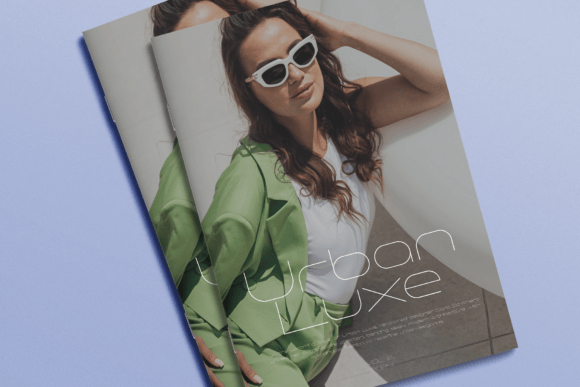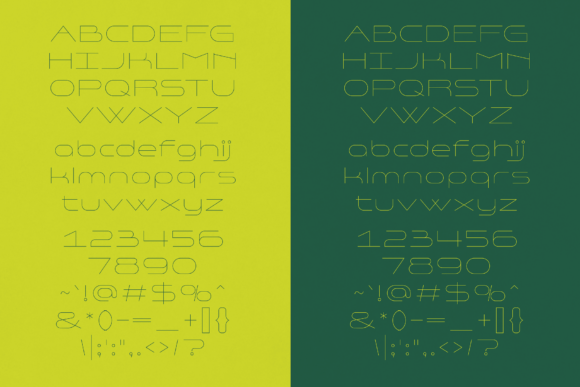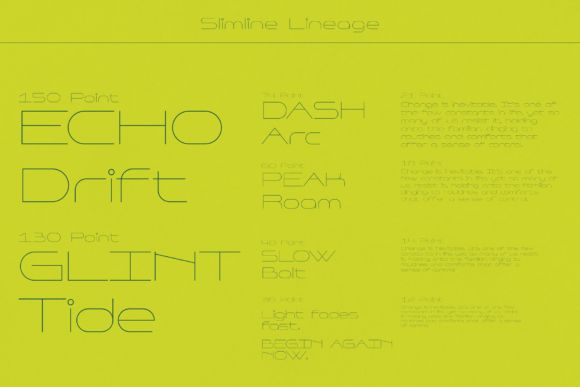
Introduction to Slimline Lineage Font
Introducing Simline Lineage, the ultimate ultra-thin typeface for designers who appreciate clean and minimalist beauty.
Available in two sleek styles—regular and dotted—this font brings a modern, elegant touch to any project Whether you’re crafting logos, posters, branding materials, or web designs, Simline Lineage’s simplicity and precision make it the perfect choice.
Key Features of Slimline Lineage Font
Why Choose Slimline Lineage Font?
Slimline Lineage Font offers exceptional quality and versatility, making it a valuable addition to your design toolkit. Whether you’re creating for personal projects or commercial use, Slimline Lineage Font delivers professional results.